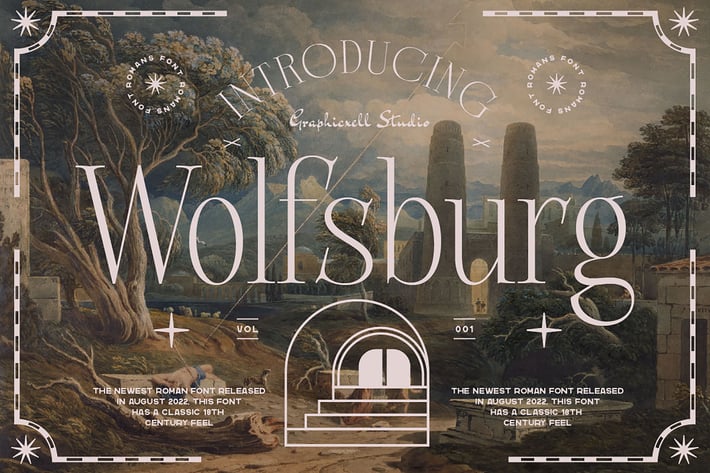
Wolfsburg Romans Font
Wolfsburg Romans Font inspired by the famous minimalist logo perfect for the purposes of designing templates, brochures, videos, advertising branding, logos, invitation, layout design, elegant crafting, beautiful design, and more.
+ Ligatures
+ International Accent
Fonts include multilingual support